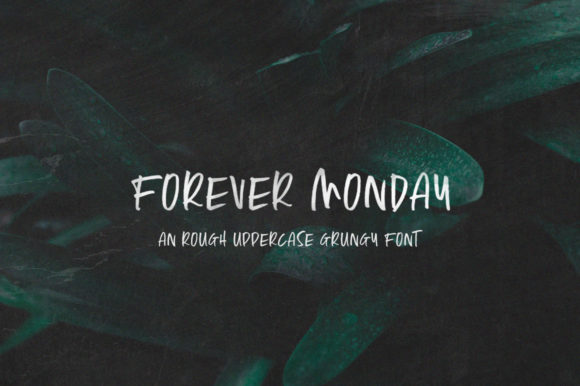
Forever Monday: Simplifying Elegance in Modern Typography
The Essence of a Truly Outstanding Display Font
Finding a typeface that feels both sophisticated and adaptable can transform a good design into a great one. Forever Monday simplifies elegance into one truly outstanding display font. This modern font will appeal to a wide range of crafty ideas, from letterheads and titles, to stationery. Its carefully balanced strokes and contemporary feel make it a versatile asset for creators looking to add a touch of refined professionalism to their work without overwhelming the viewer.
As a premium display font, Forever Monday strikes a beautiful balance. It possesses enough character to stand out in headlines and logos, yet maintains a clean legibility that prevents it from feeling cluttered. This makes it an excellent choice for projects where visual impact and clarity must coexist. Whether you are designing a brand identity system or crafting a striking poster, this typeface provides a solid foundation for visual storytelling.
Ideal Applications for Creative Projects
The true test of a font is how well it performs across different contexts. Forever Monday shines in numerous design scenarios, particularly where a modern, polished aesthetic is desired.
- Brand Identity and Logo Design: Its distinct personality helps logos stand out, while its elegance ensures brand materials look cohesive and high-end.
- Editorial and Packaging Design: Use it for magazine covers, book titles, or product packaging to grab attention and convey quality.
- Digital and Social Media Graphics: Create eye-catching social media posts, website headers, and digital advertisements that look sharp on any screen.
- Print Collateral: From wedding invitations and greeting cards to business letterheads and premium stationery, it adds a touch of sophistication.
Consider pairing it with a simple sans serif or a clean script font for body text to create a dynamic and readable typographic hierarchy. This contrast allows Forever Monday to command attention in headlines while supporting content remains easy to read.
Design Flexibility and Visual Hierarchy
A key strength of Forever Monday lies in its scalability. It maintains its visual integrity and readability whether used at a large scale for a billboard or scaled down for a subtle accent on a business card. This adaptability is crucial for maintaining a consistent brand voice across all touchpoints.
When using this typeface, think about visual hierarchy. Its bold, confident forms naturally draw the eye, making it perfect for primary headings and key messages. Use weight variations or size differences to guide the viewer’s attention through your layout. For instance, a large, spaced-out setting for a title followed by a smaller, tighter setting for a subtitle can create a powerful and organized flow.
Enhancing Brand Perception Through Typography
Typography is a silent ambassador for your brand. The fonts you choose communicate tone, values, and professionalism before a single word is read. Selecting a typeface like Forever Monday can signal modernity, attention to detail, and a commitment to quality. It helps build trust and recognition, which are foundational to strong brand identity.
Making the Most of Your Font Choice
Experiment with different settings. Try adjusting letter-spacing, line height, and color to see how the font responds. Its elegant structure often looks stunning with generous spacing, allowing each character to breathe. Test it in context—mock up a logo on a business card or place it on a sample website design to see how it interacts with other visual elements like colors and imagery.
Choosing the right typeface is a critical step in the design process. A well-crafted font like Forever Monday offers the creative flexibility and professional polish needed to elevate your projects. By understanding its strengths and applying it thoughtfully, you can create designs that are not only beautiful but also effective in communicating your intended message.